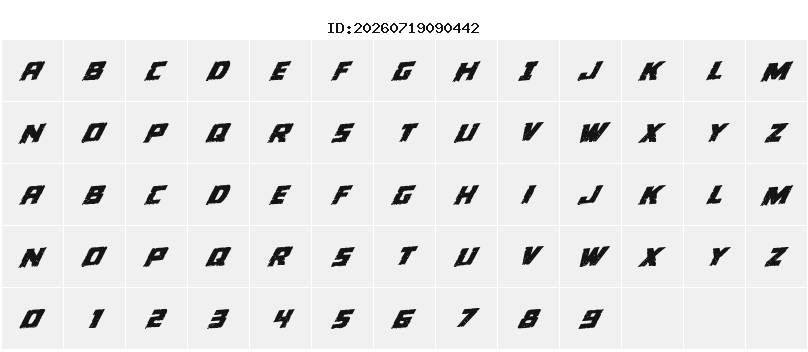
Colossus Rotatalic Preview
• Font Name: Colossus Rotatalic
• Font ID: Colossus Rotated Rotatalic: 2011
• Full Font Name: Colossus Rotated Rotatalic
• PostScript Name: ColossusRotatedRotatalic
• Character Count: 163
About Colossus Rotatalic.ttf
Colossus Rotatalic.ttf is a modern, elegant sans-serif font designed for ultimate readability and visual harmony. Perfect for branding, headlines, web design, and print materials.